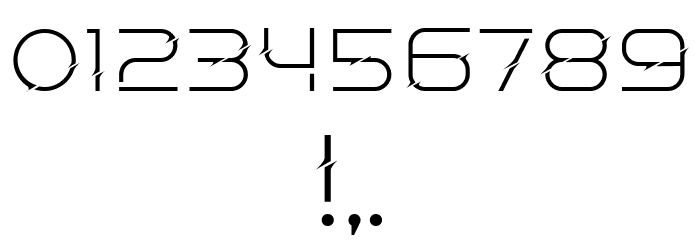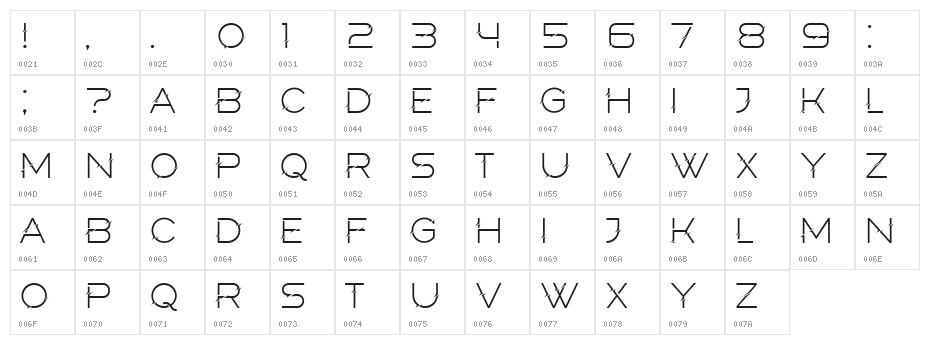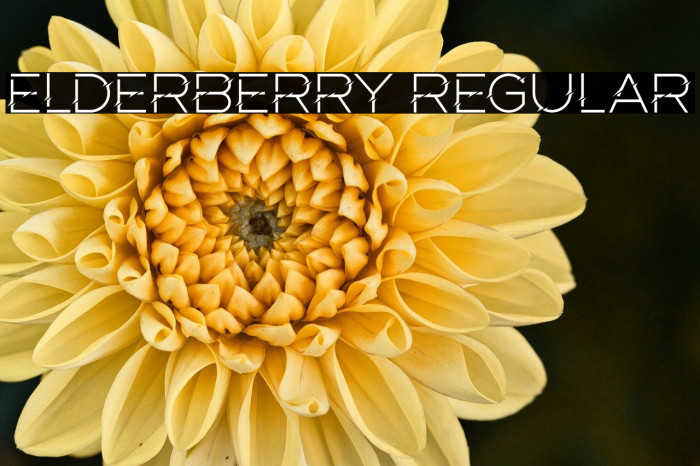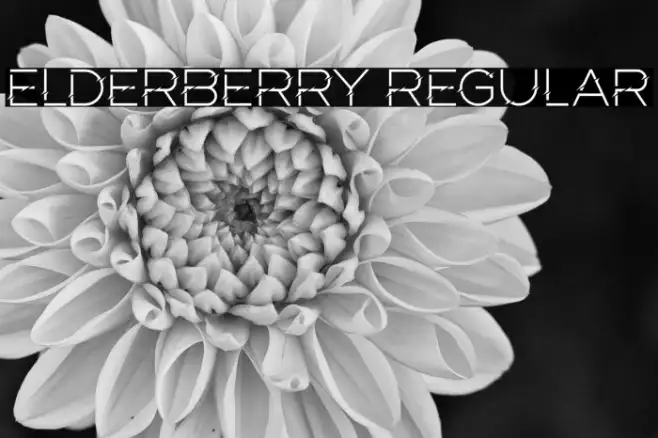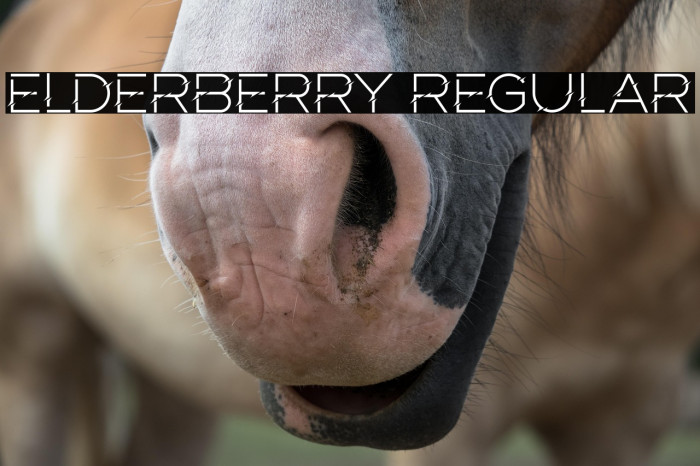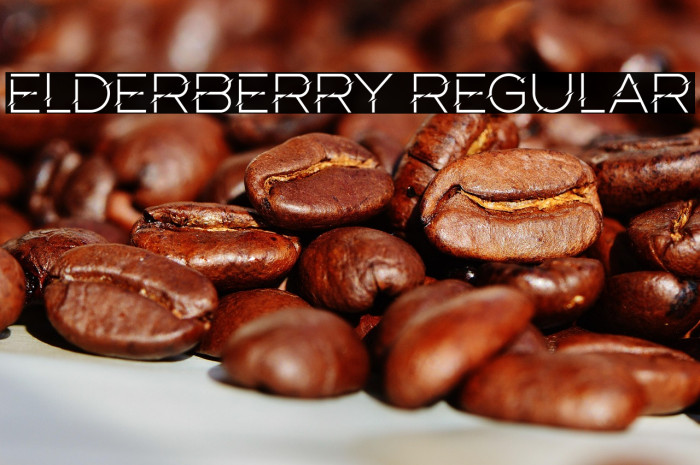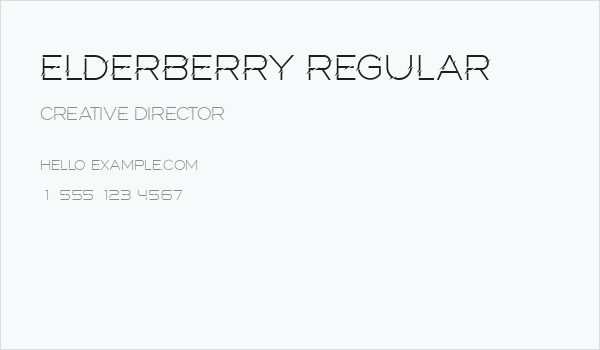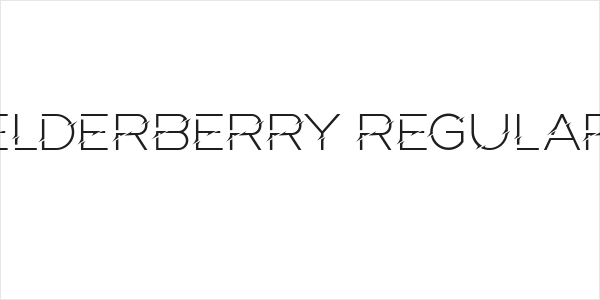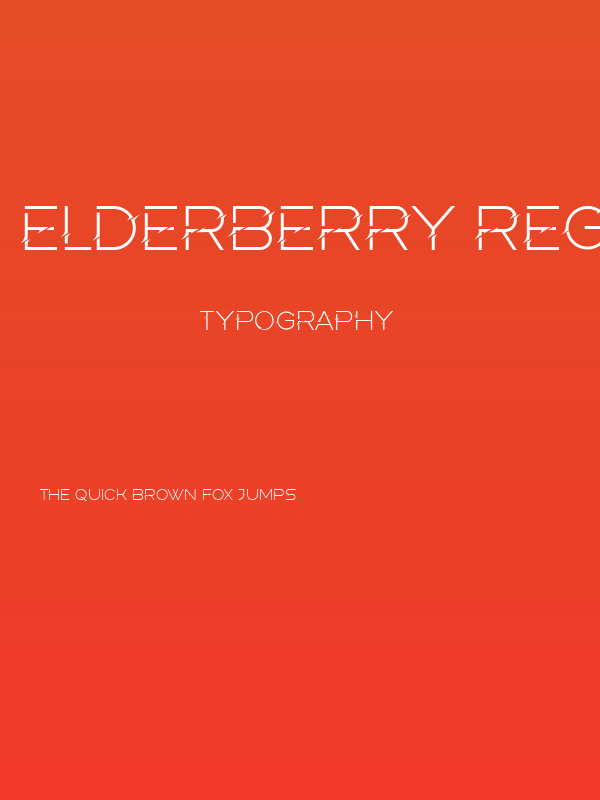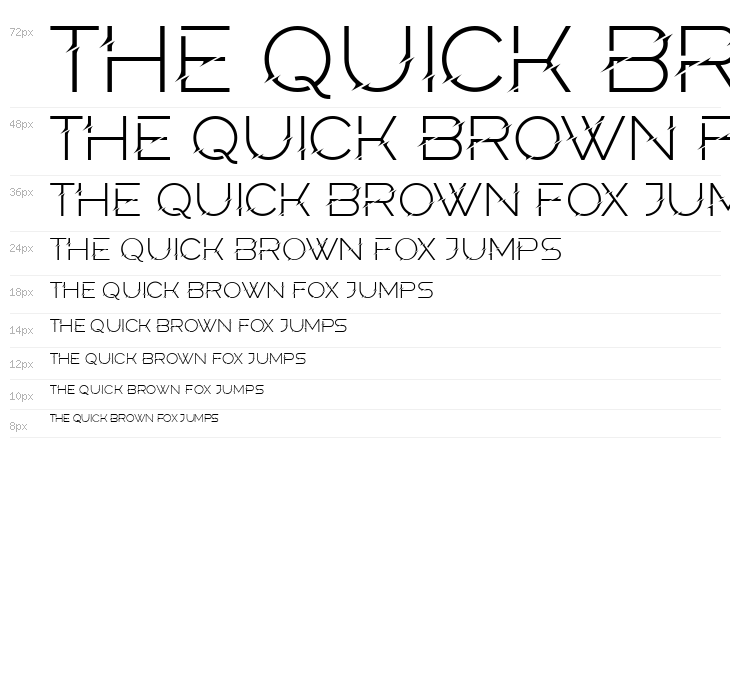
Elderberry Regular Font
Elderberry Regular Description
This font features a modern and geometric design with a unique twist. Each character is constructed with clean, straight lines and sharp angles, giving it a futuristic and technical appearance. The letters are slightly fragmented, with small gaps that add an element of intrigue and complexity. This design choice makes the font stand out, offering a distinctive look that is both stylish and innovative. The font maintains a consistent weight throughout, ensuring readability while still being visually striking. Its structured form and precise alignment make it suitable for projects that require a contemporary and edgy aesthetic.
| Proposed Projects | Ideal for technology branding, sci-fi themed projects, modern posters, and innovative product packaging. |